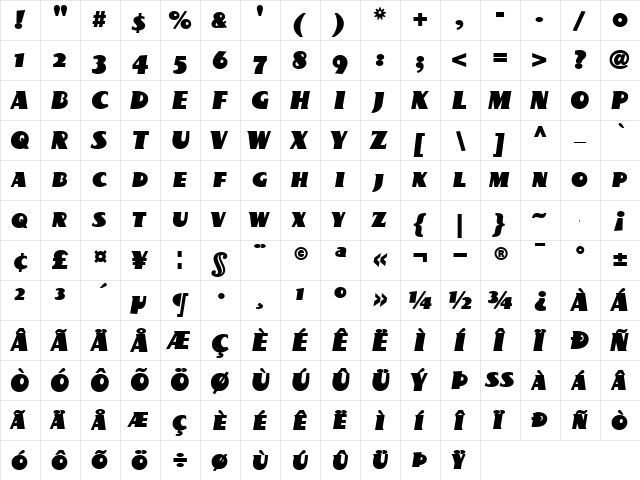
BottleKaps SC CondItalic Regular Font Preview
Design Context for BottleKaps SC CondItalic Typeface
BottleKaps SC CondItalic takes a measured approach to typography — its balanced proportions and neutral character make it a reliable workhorse for both digital and print work. The dynamic lean of this cut emphasises speed and emphasis in any layout. The condensed width makes it efficient for tight spaces without sacrificing legibility.
Pro Tip: Try BottleKaps SC CondItalic for annotation and caption copy alongside an upright companion — the contrast in angle creates a dynamic but ordered typographic system.